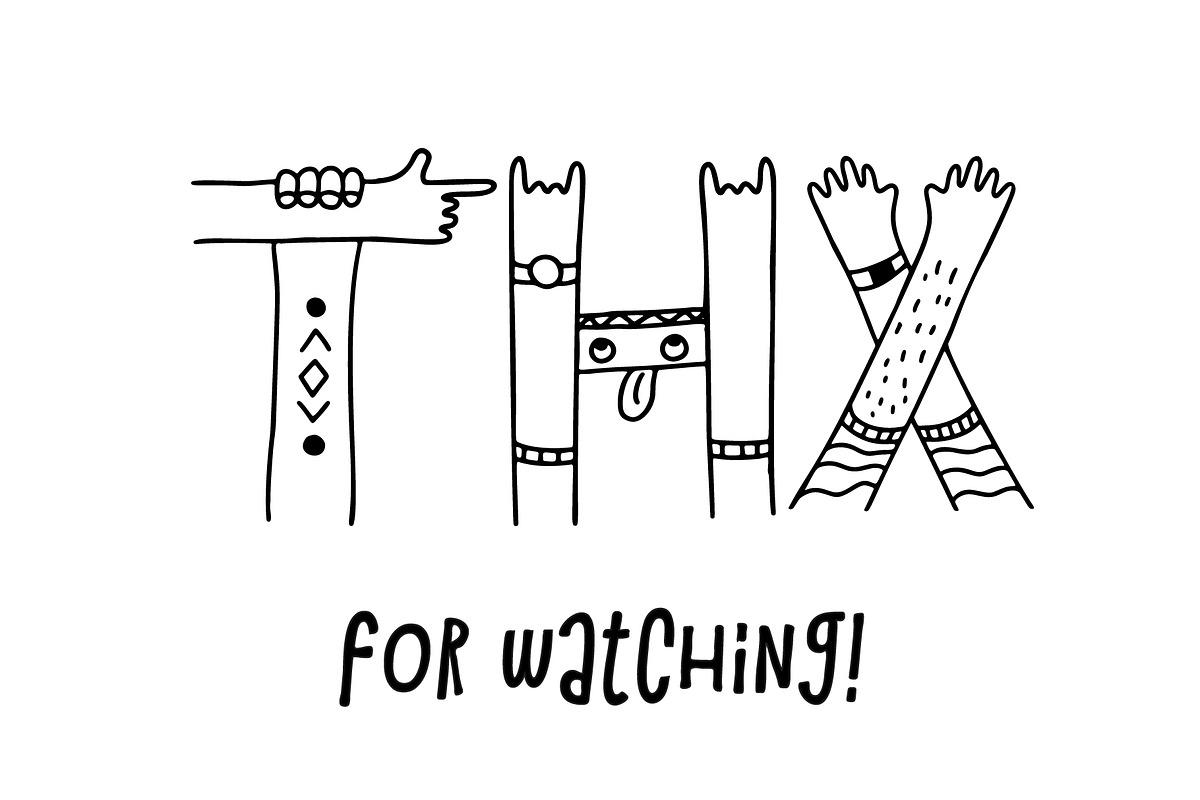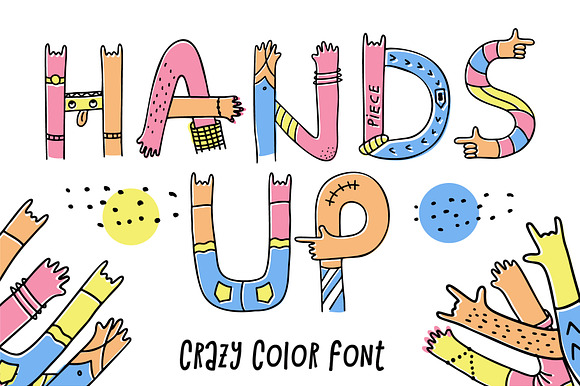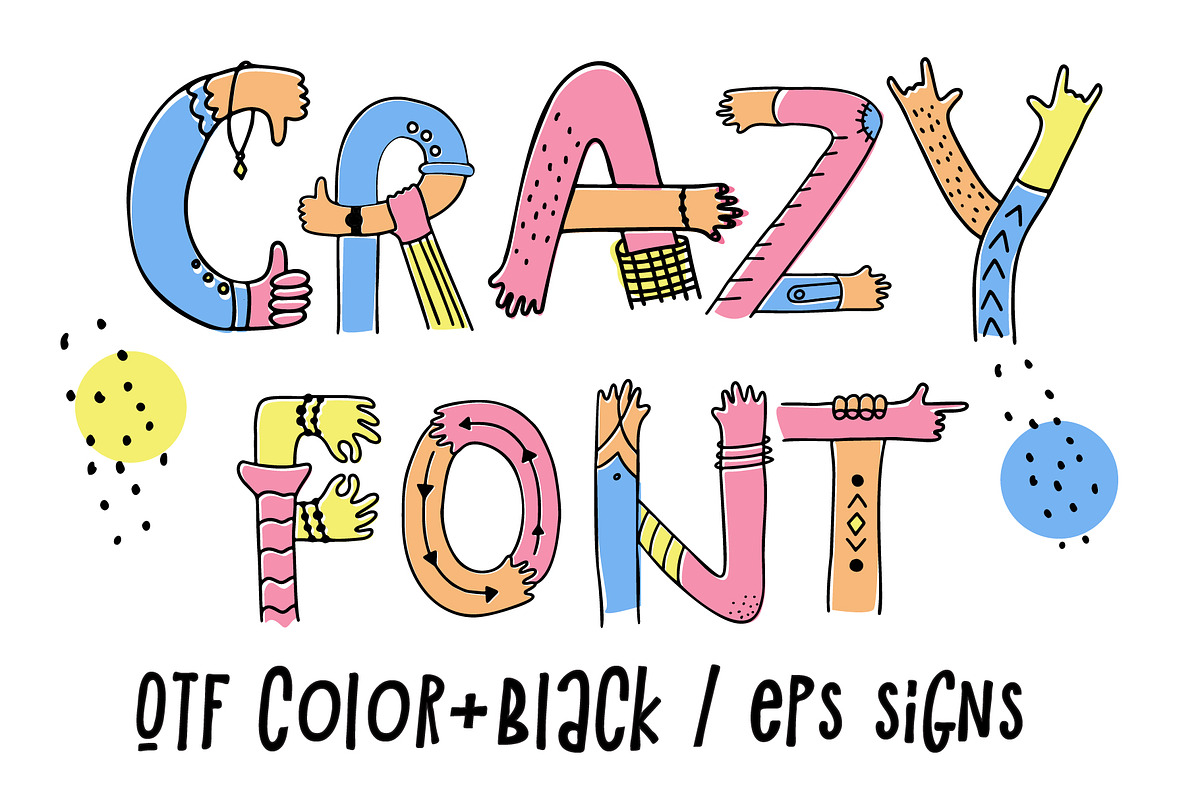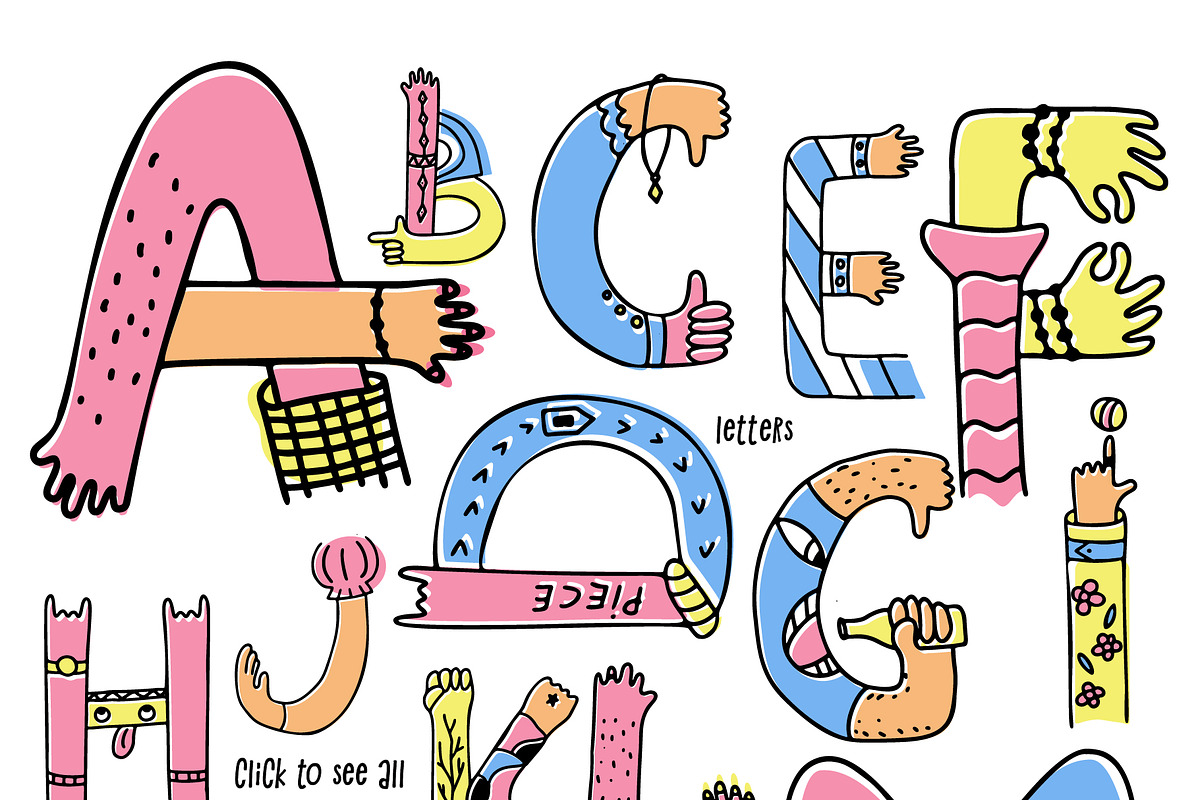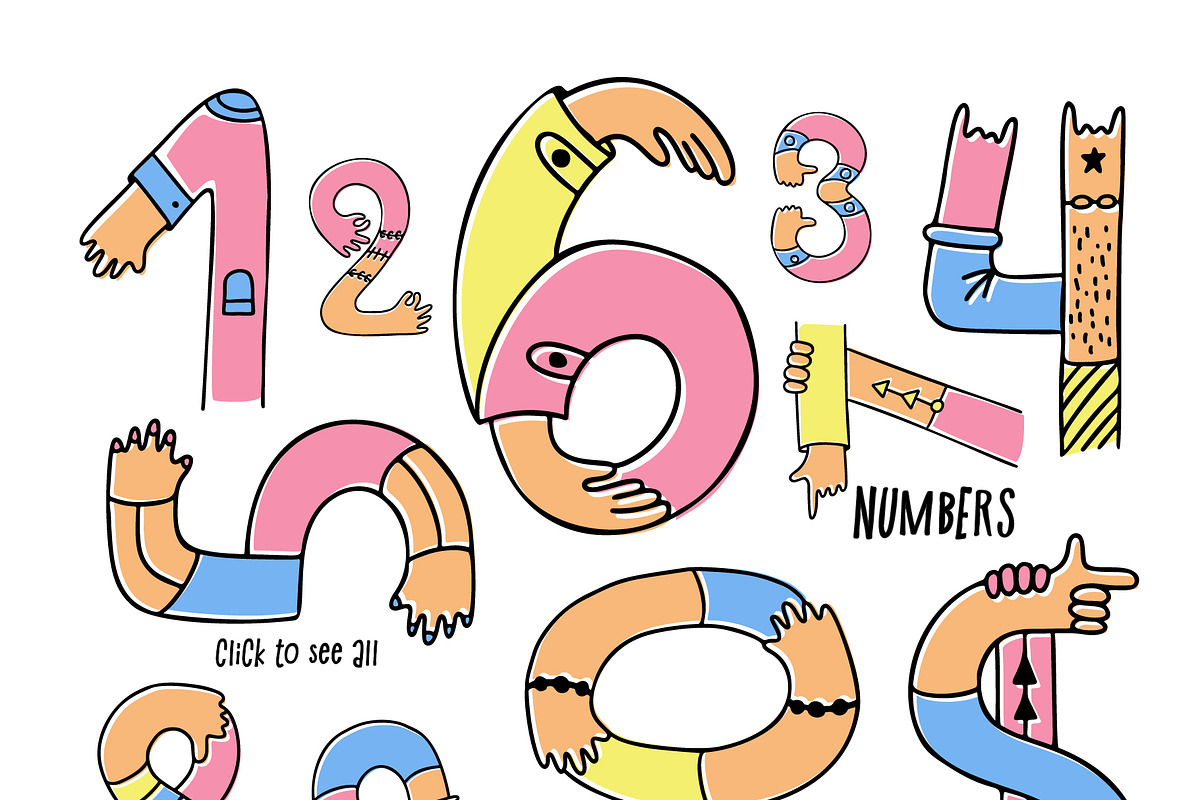
Hands up crazy color font
Hands up crazy font. Creative letters done with arm gesture, palm, fingers, and thumb in a funny way. You can use this font for design logos, quotes prints on t-shirts and other.